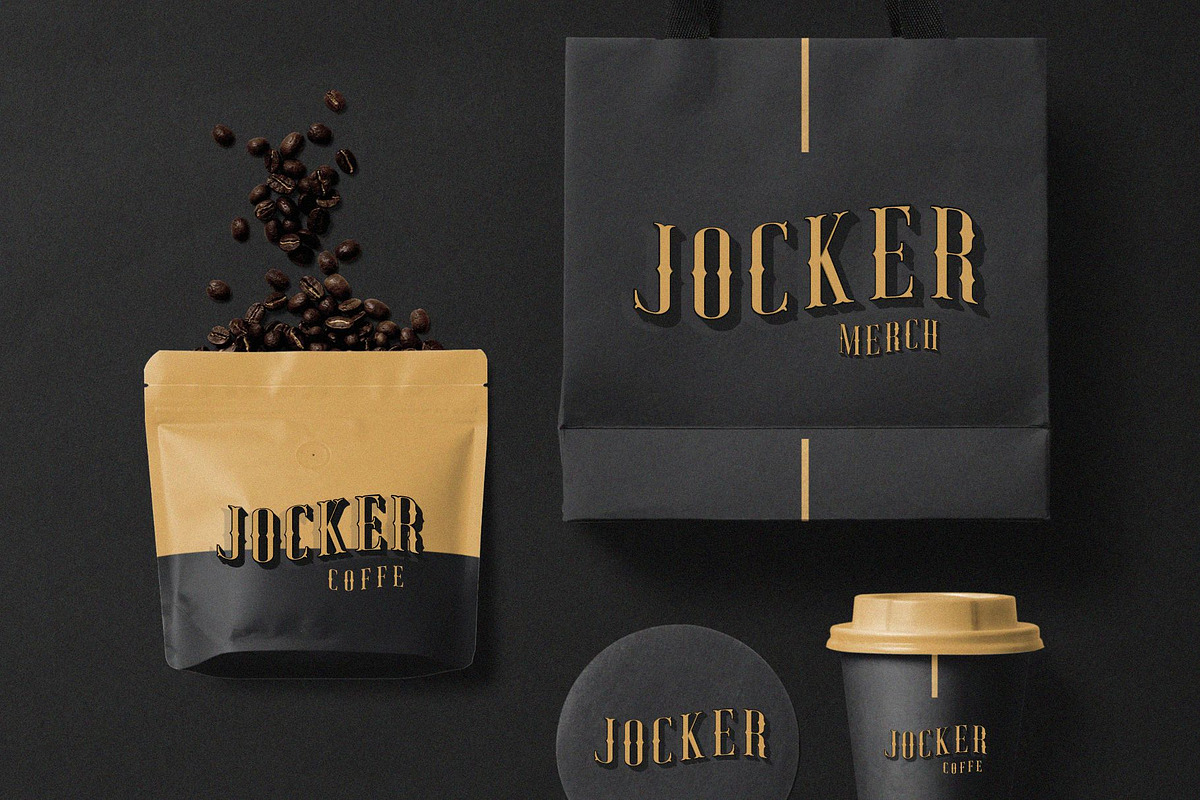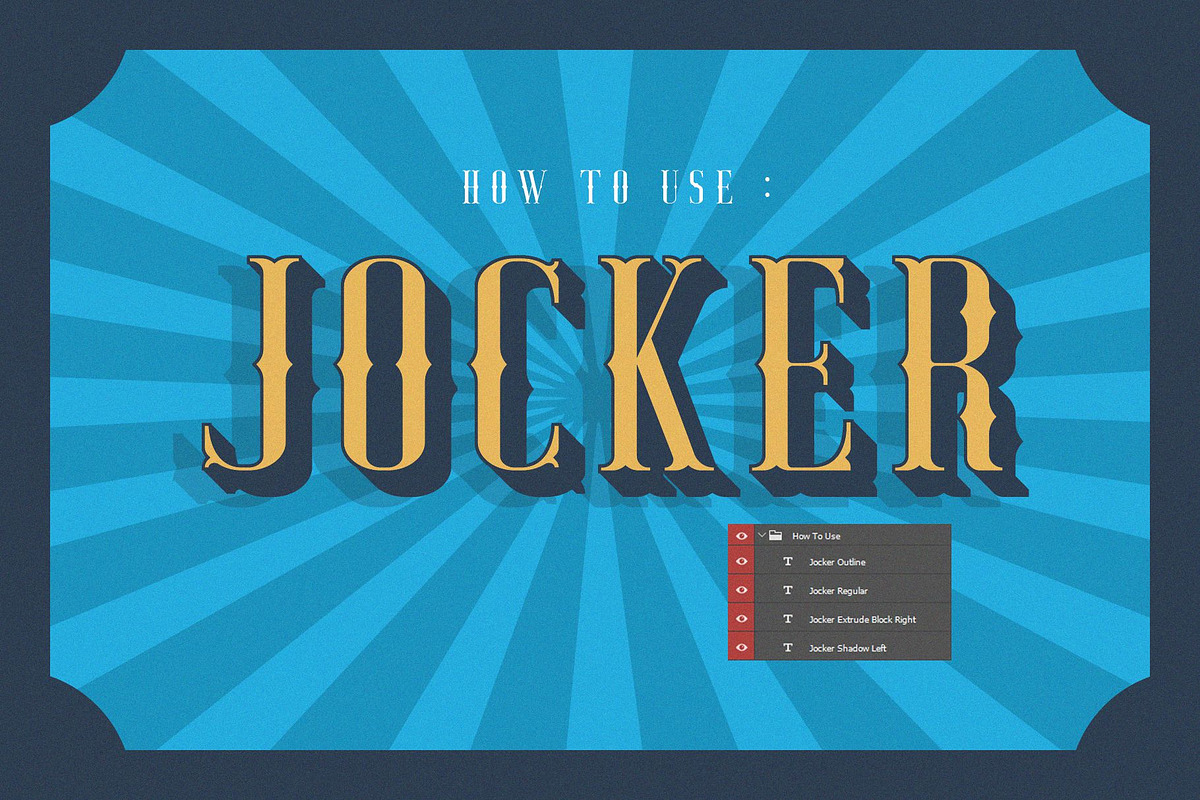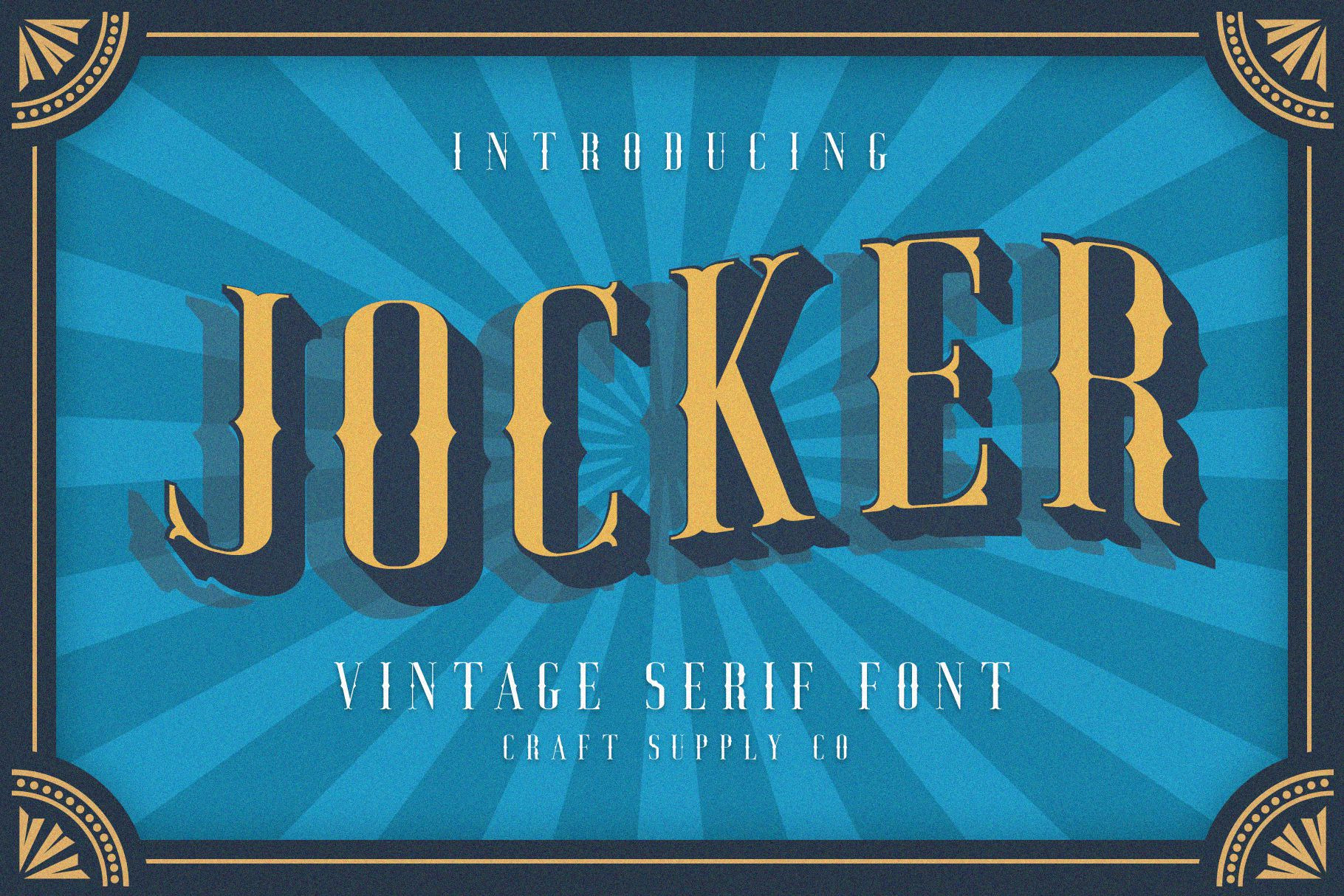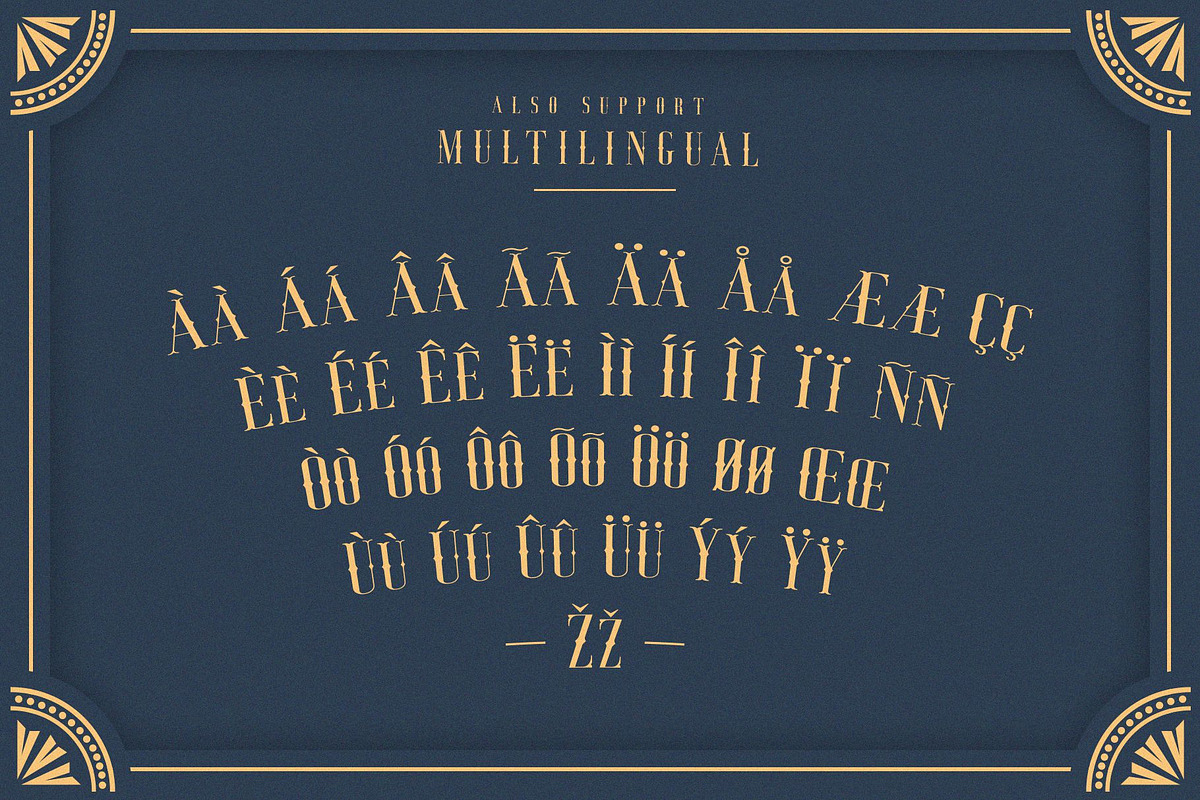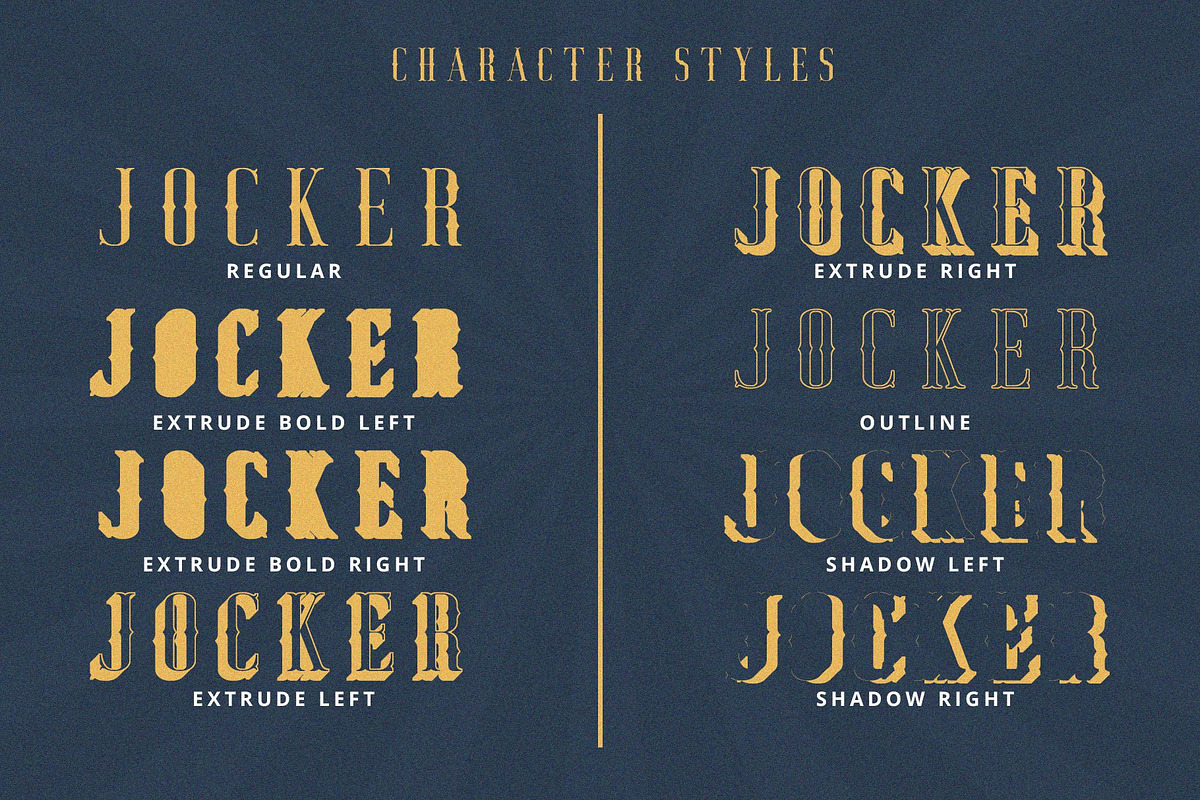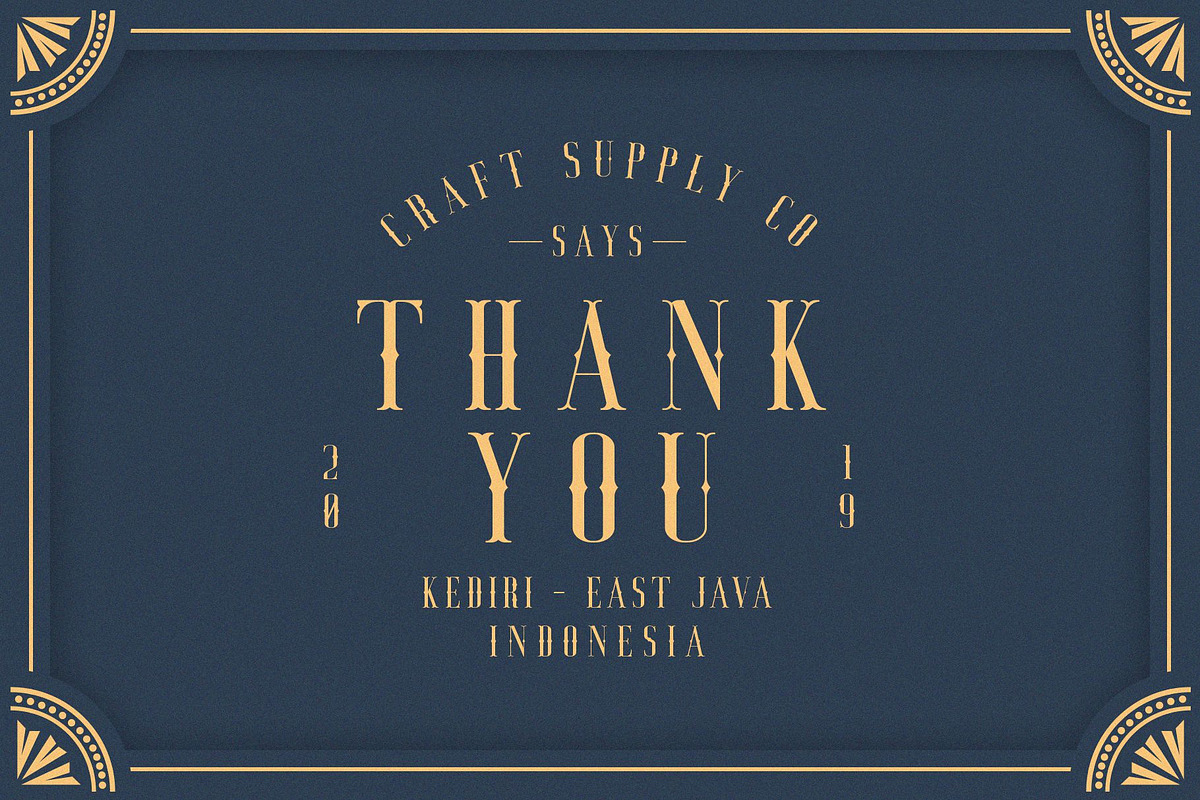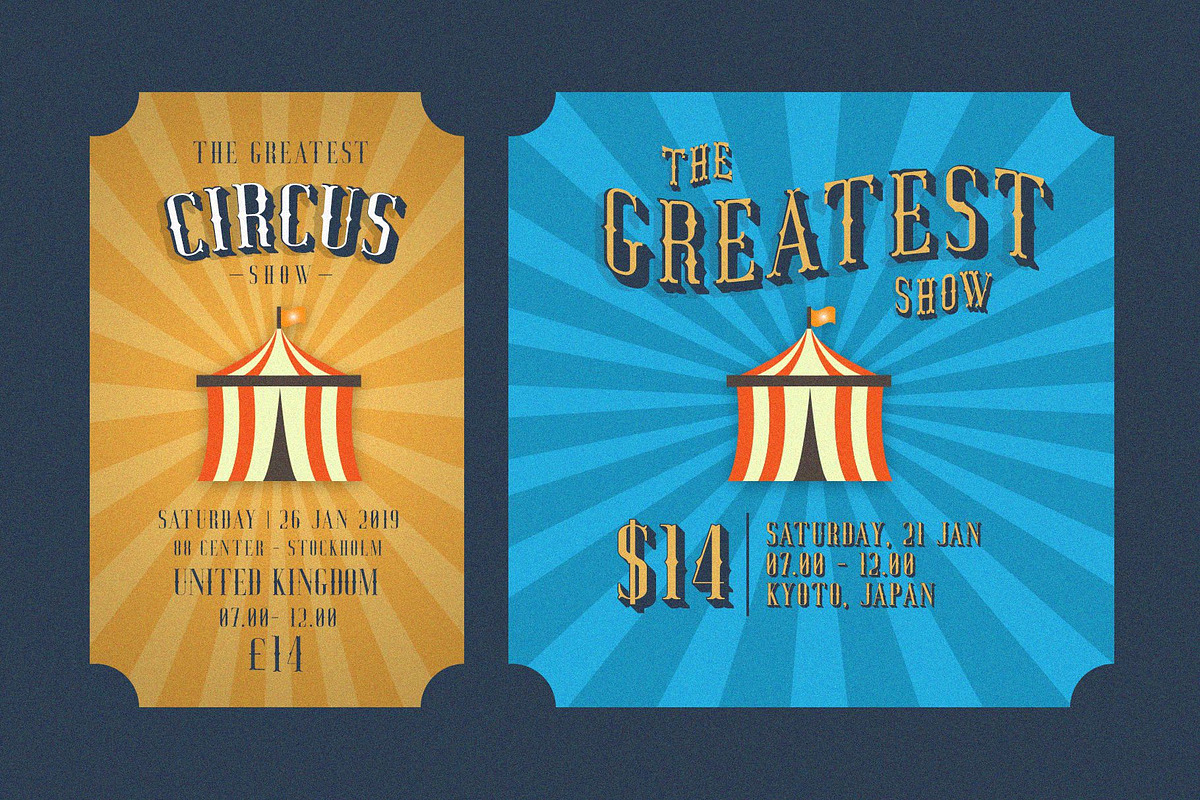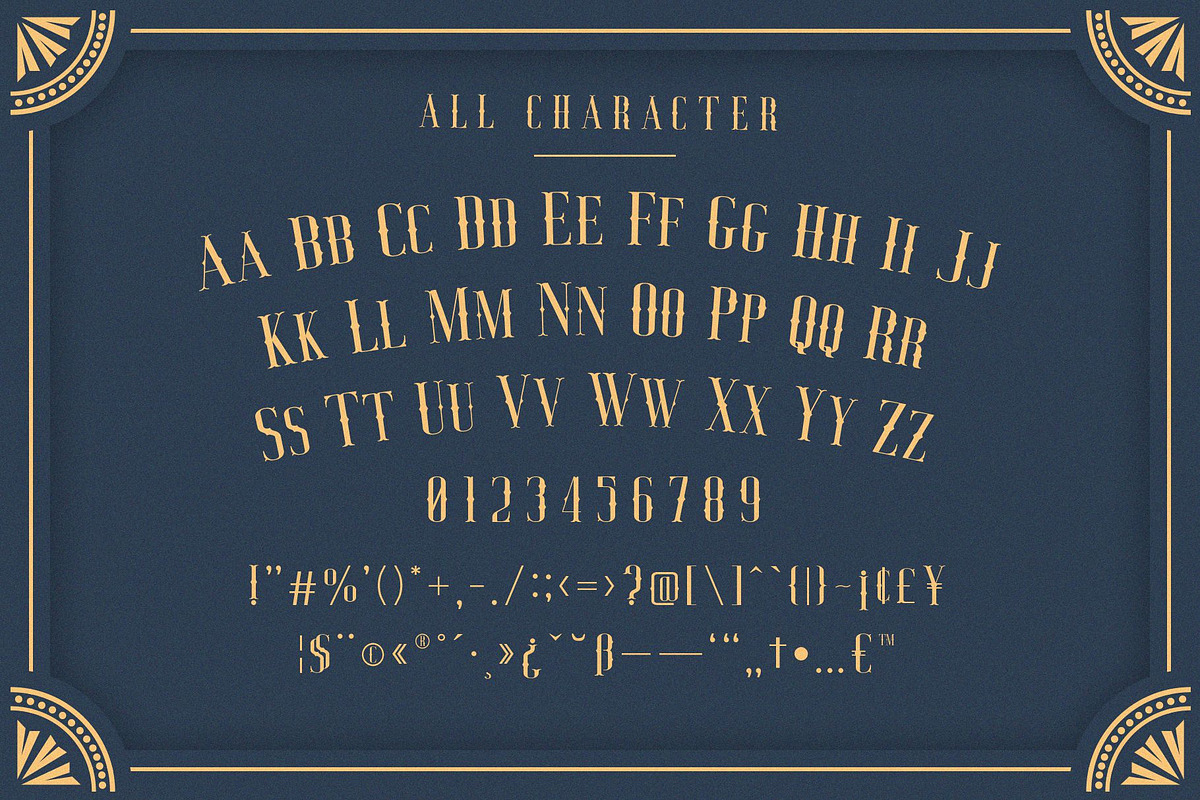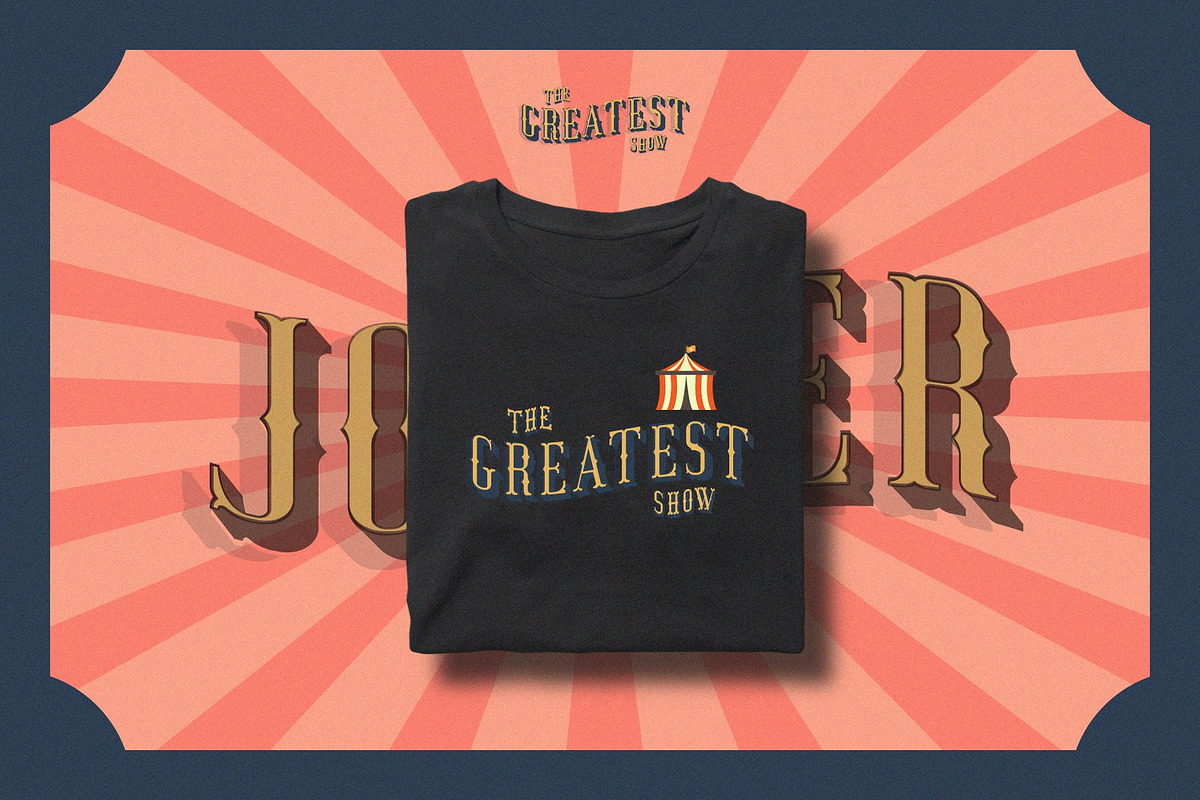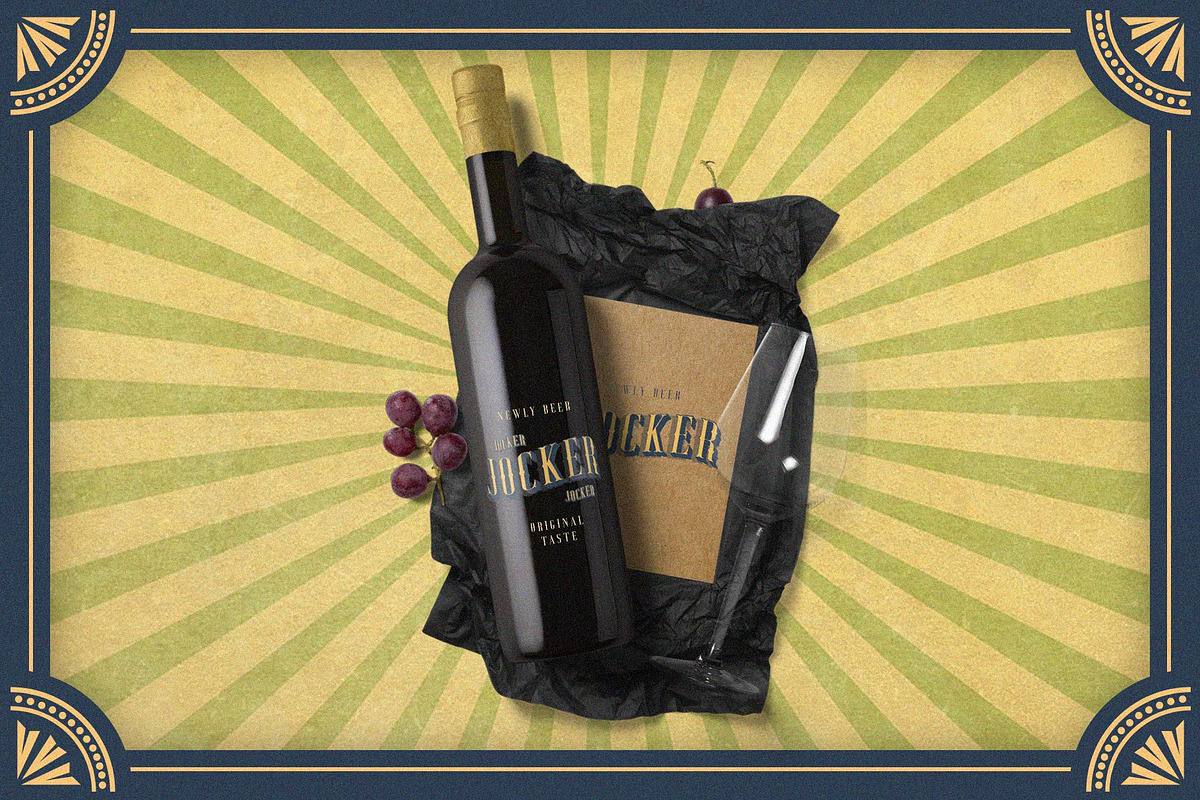
Jocker - Vintage Serif Font Family
Introducing New Font : Jocker - Vintage Serif Font Family - 8 Layered Fonts
Jocker - Vintage Serif Font Family is a Sans Serif style display font in 4 layers, Jocker - Vintage Serif Font Family was the result of an exploration of Retro American and European bold Sans Serif lettering for advertising. is an attractive contemporary typeface drawn from scratch with brand-new, more vigorous detailing — and layerable variations for chromatic use.
Jocker - Vintage Serif Font Family is suitable for Logo, greeting cards, quotes, posters, branding, name card, stationary, design title, blog header, art quote, typography art, modern envelope lettering or book design.
Jocker - Vintage Serif Font Family also suitable for happening style like handdrawn design or watercolor design theme, craft design, any DIY project, book title, wedding font, pop vintage design, or any purpose to make our art/design project look pretty and trendy.
- All Caps
- Accents (Multilingual characters) (AÀÁÂÃÄÅCÇDÐEÈÉÊËIÌÍÎÏNÑOØÒÓÔÕÖUÙÜÚÛWYÝŸỲŸÆŒßÞ)